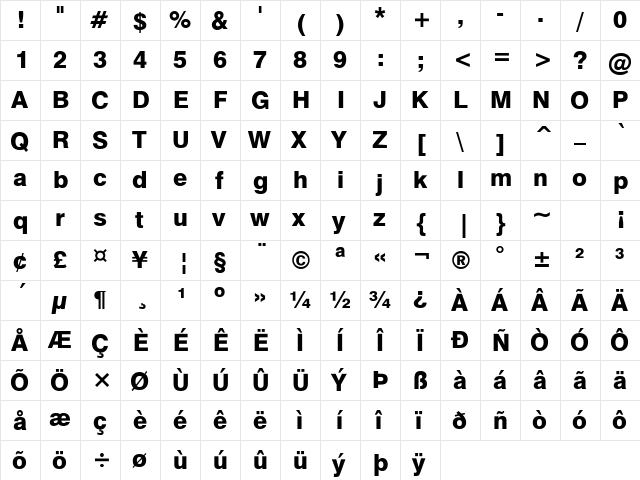
HailstenHeavy Regular
Design Context for HailstenHeavy Typeface
HailstenHeavy is a composed and adaptable typeface that performs quietly and consistently across a wide range of design contexts.